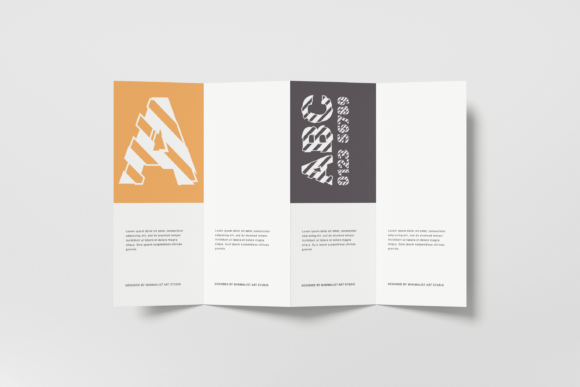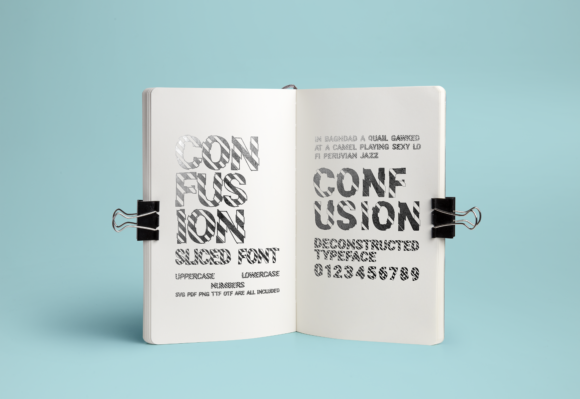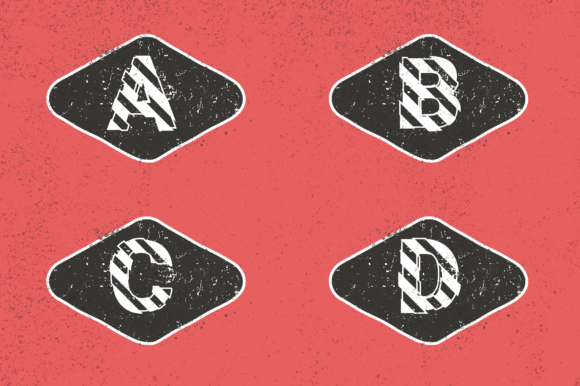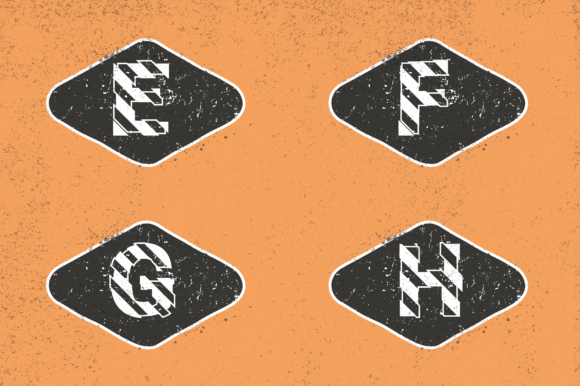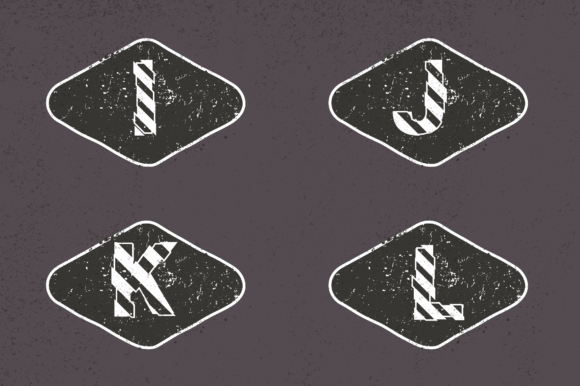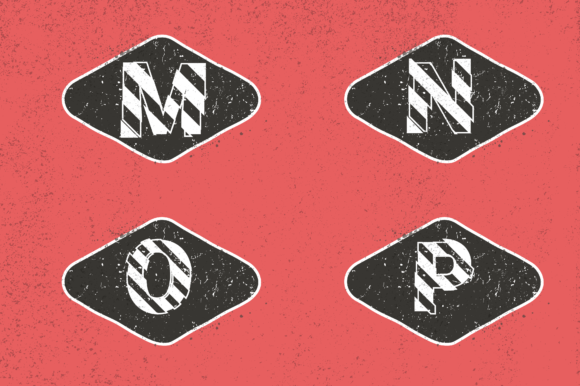
Unleash Your Creativity with Confusion Font: A Cool and Unique Decorative Font
Are you tired of using the same old fonts for your crafting projects? Do you want to add a touch of personality and whimsy to your cards, branding, labels, and more? Look no further than Confusion Font, a cool and unique decorative font that’s sure to elevate your creations and leave a lasting impression.
What is Confusion Font?
Confusion Font is a decorative font designed to add a dash of excitement and playfulness to your projects. Its unique and quirky style makes it perfect for crafters, designers, and DIY enthusiasts who want to stand out from the crowd. Whether you’re creating handmade cards, branding materials, labels, or other craft projects, Confusion Font is the perfect addition to your design toolkit.
Why Choose Confusion Font?
So, what sets Confusion Font apart from other fonts? Here are just a few reasons why you should consider adding it to your favorite creations:
• Unique and Eye-Catching: Confusion Font features a one-of-a-kind design that’s sure to grab attention. Its quirky and playful style makes it perfect for projects that need a bit of personality.
• Versatile: Confusion Font can be used for a wide range of crafting ideas, from cards and invitations to branding, labels, and more.
• High-Quality: Confusion Font is a high-quality font that’s designed to produce crisp, clear results, even at small sizes.
3. Experiment with Different Styles: Don’t be afraid to try out different styles and combinations with Confusion Font. You can use it on its own or pair it with other fonts for a unique look.
Ideas for Using Confusion Font
Confusion Font is a versatile font that can be used for a wide range of crafting ideas. Here are a few ideas to get you started:
• Handmade Cards: Add a personal touch to your handmade cards with Confusion Font. You can use it for the main text or as a decorative element.
• Branding Materials: Use Confusion Font to create unique and eye-catching branding materials, such as logos, business cards, and letterheads.
• Labels: Add a touch of personality to your labels with Confusion Font. You can use it for product labels, address labels, or any other type of label.
• Invitations: Create unique and eye-catching invitations with Confusion Font. You can use it for weddings, birthday parties, or any other type of event.